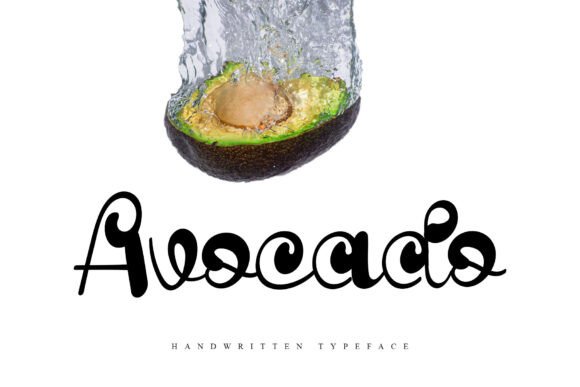
The Avocado Font: A Unique and Elegant Addition to Your Design Arsenal
I’ll never forget the time I was working on a wedding invitation project, and my client asked for a font that was both elegant and playful. I scoured the internet, tried out countless fonts, but nothing seemed quite right. That was until I stumbled upon the Avocado font. It was love at first sight! ✨ The unique blend of handwritten charm and sophistication made it the perfect fit for the project. And, as I soon discovered, it’s an incredibly versatile font that can elevate a wide range of designs.
A Personal Review of Avocado Font
- ✨ Unique and elegant handwritten style that’s perfect for adding a personal touch to designs
- ✅ PUA encoded, making it easy to access all glyphs and swashes
- ✅ Features a varied baseline, giving designs a natural, hand-made look
- ✅ Suitable for a wide range of projects, from wedding invitations and greeting cards to billboards and logos
While the Avocado font is an excellent choice for many designs, there are a few things to keep in mind:
- ⚠️ Some users may find the font’s handwritten style too ornate or playful for certain projects
- 🤔 The font’s varied baseline can make it tricky to use in certain design applications
The Story Behind Avocado Font
The Avocado font was created by a talented designer who’s passionate about typography. The designer’s inspiration for the font came from the beauty of handwritten script and the desire to create a font that was both elegant and playful. The result is a font that’s perfect for designs that require a personal touch.
| Font Name | Avocado Font |
| Author | GiaLetter |
| What is the Avocado font? | The Avocado font is a unique and elegant handwritten font that’s perfect for adding a personal touch to designs. |
| Does the Avocado font support OpenType features? | Yes, the Avocado font supports OpenType features, including glyphs and swashes. |